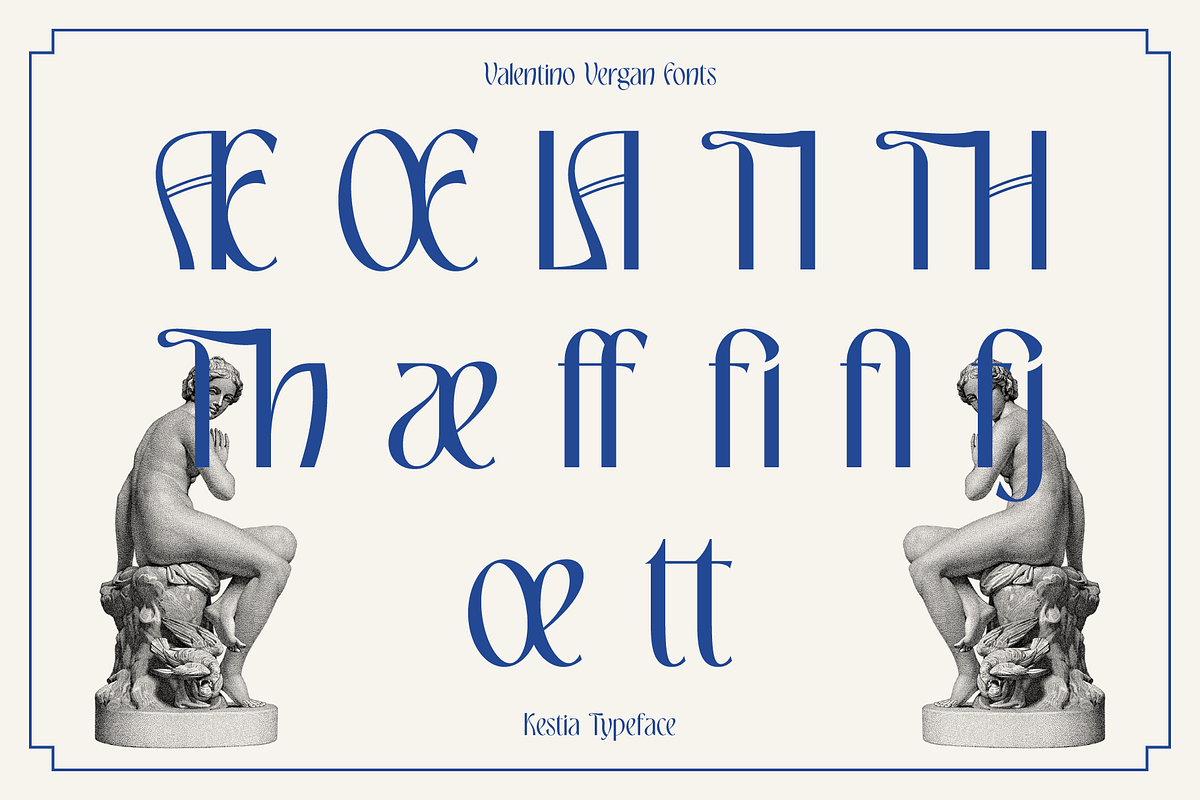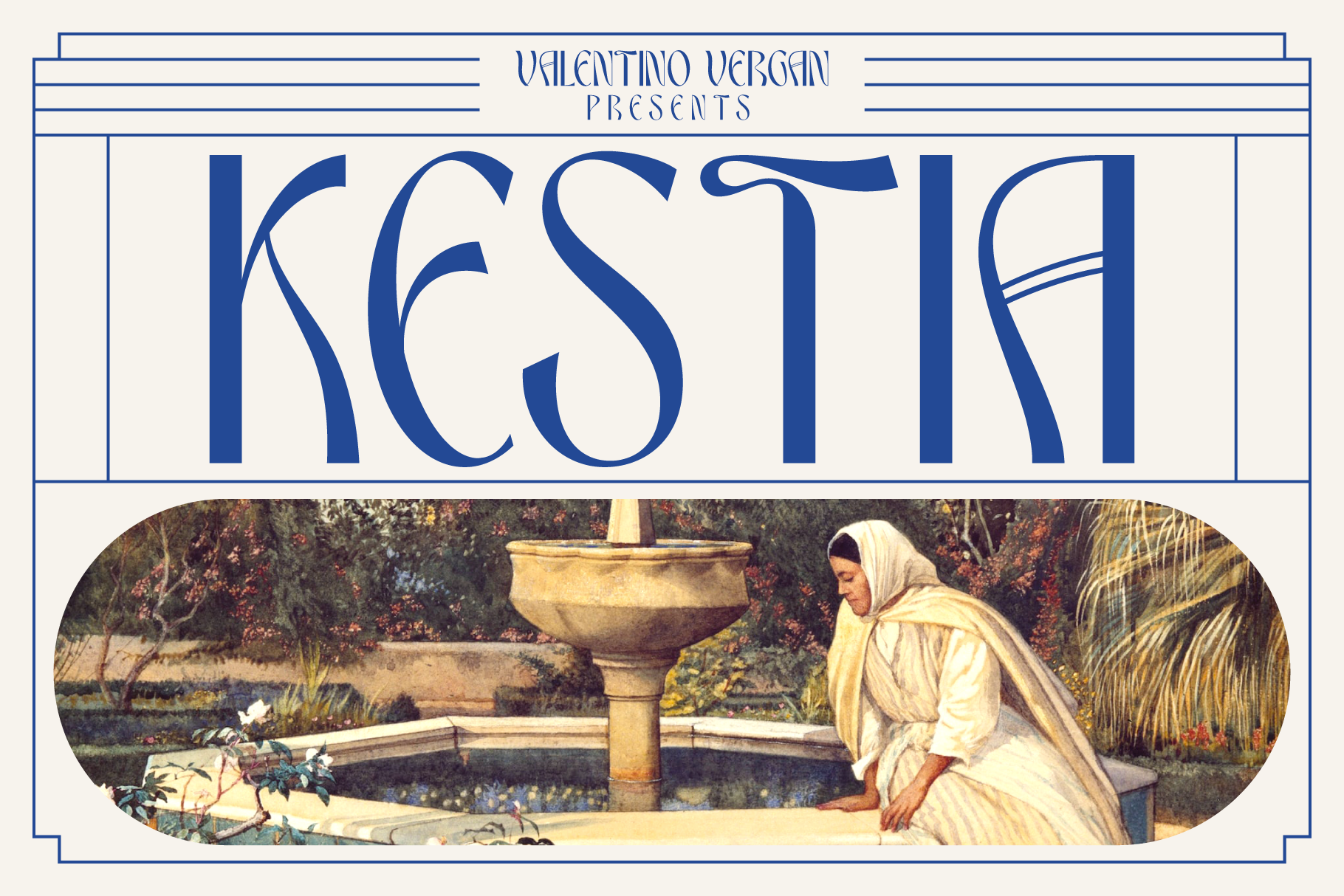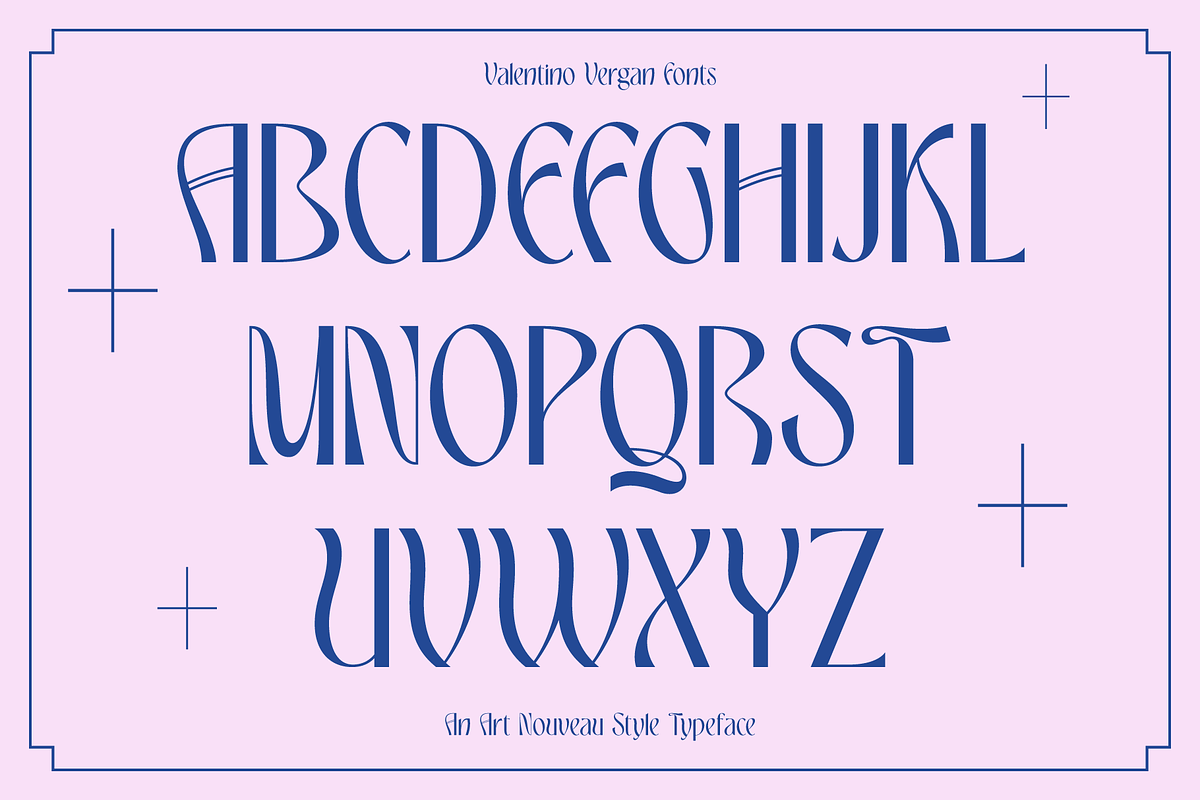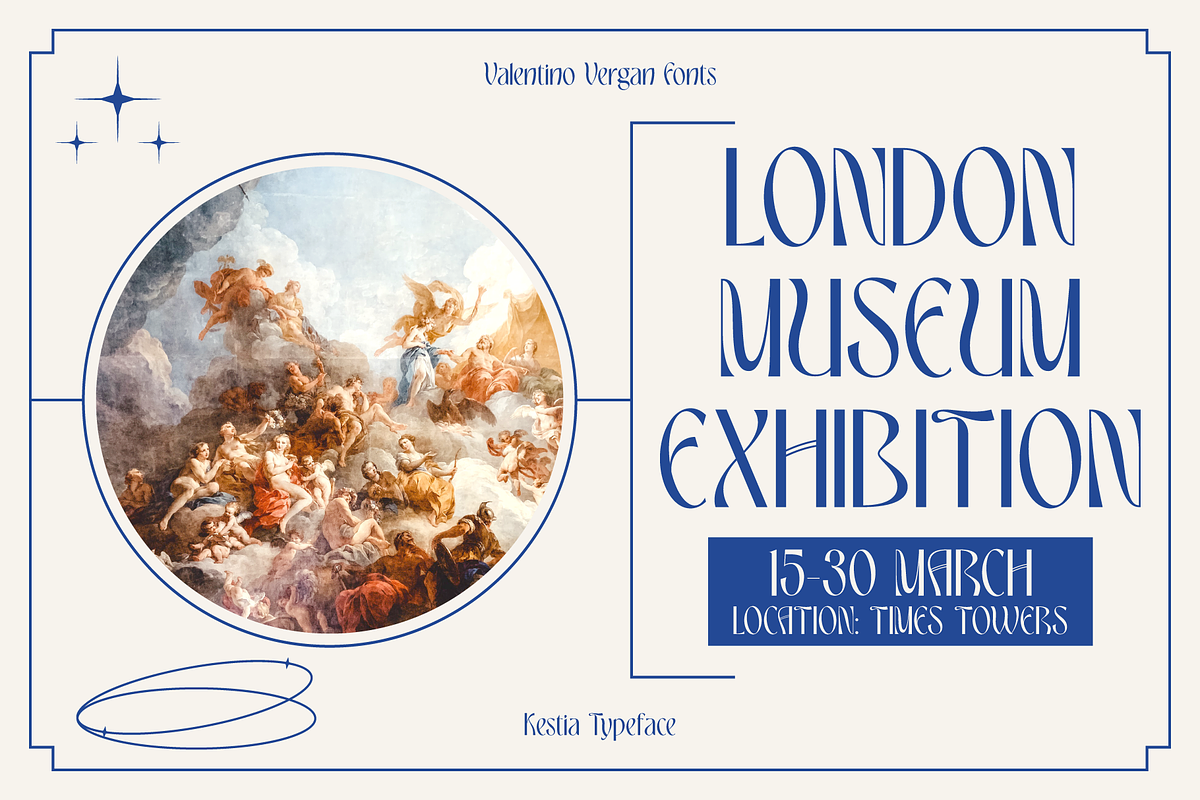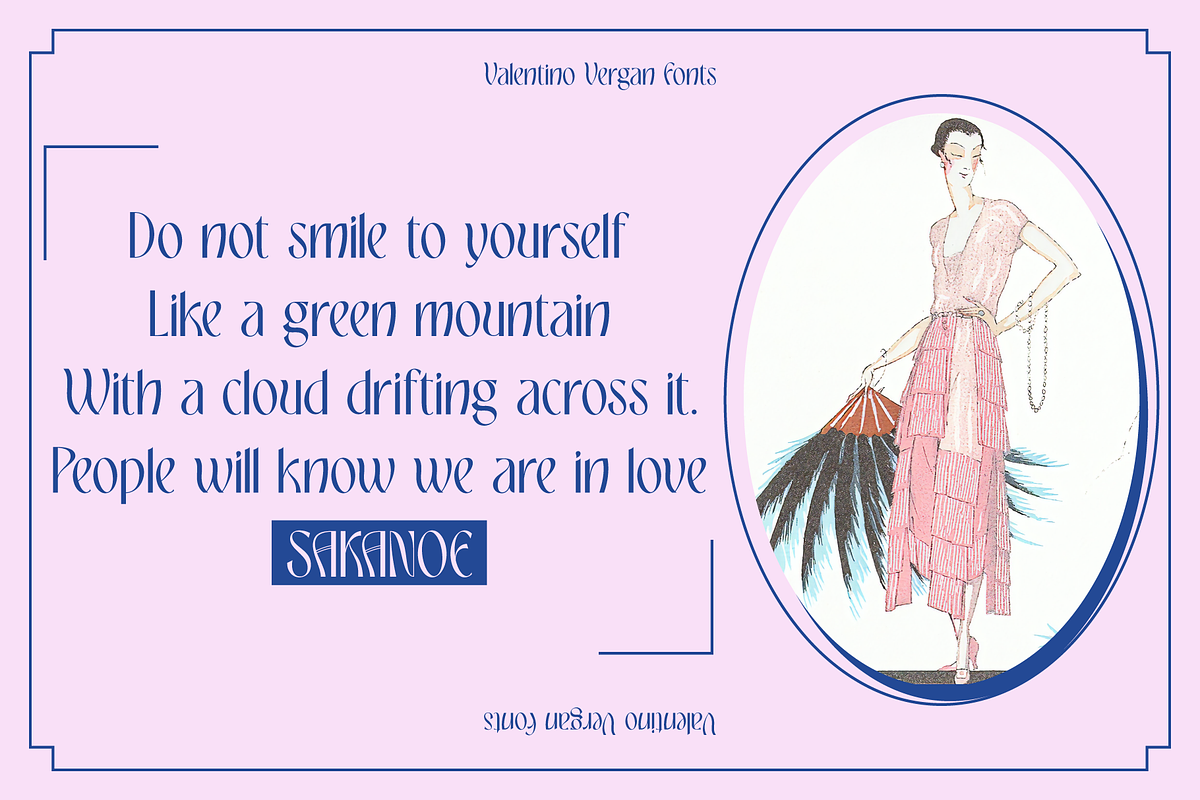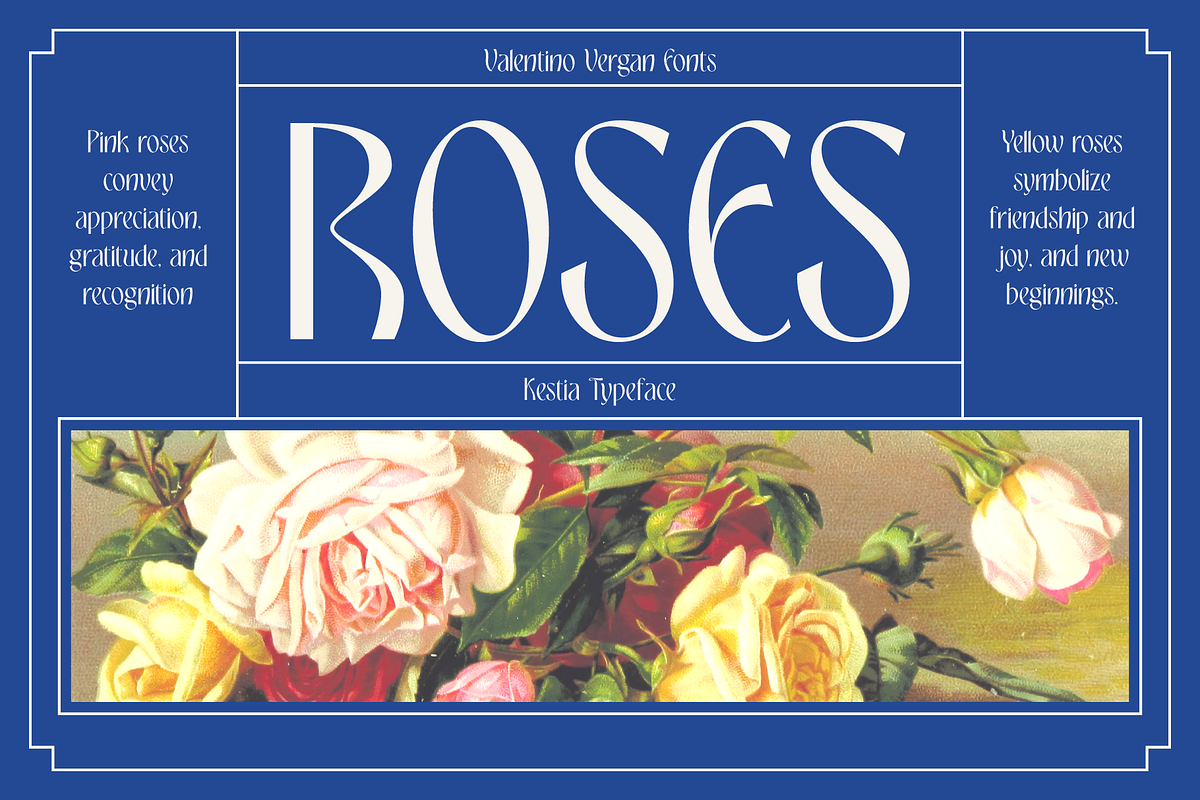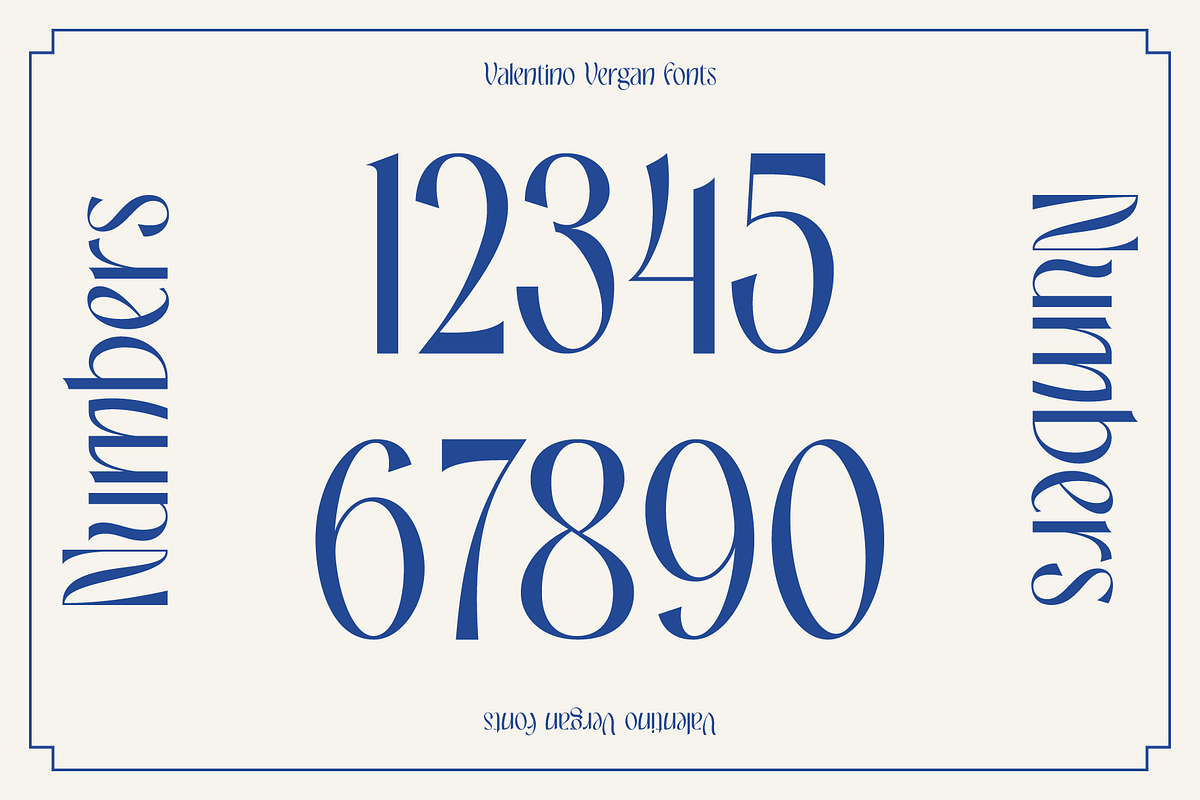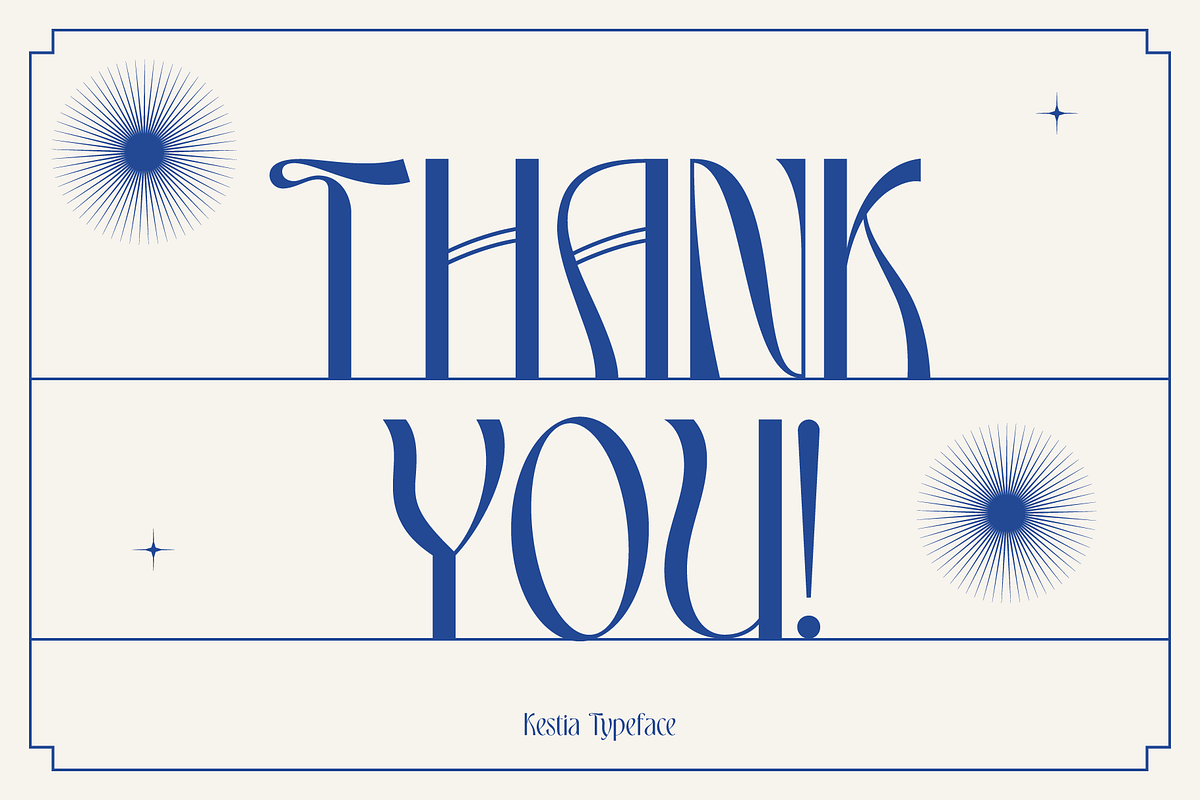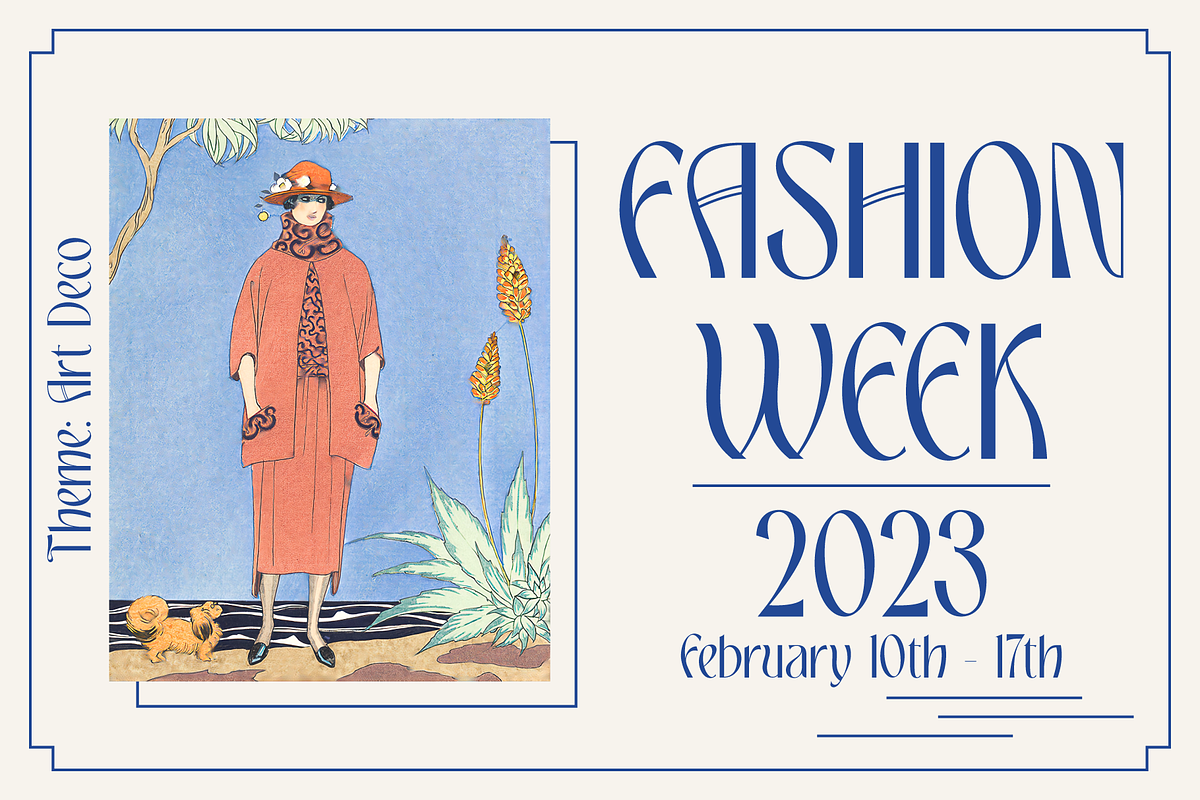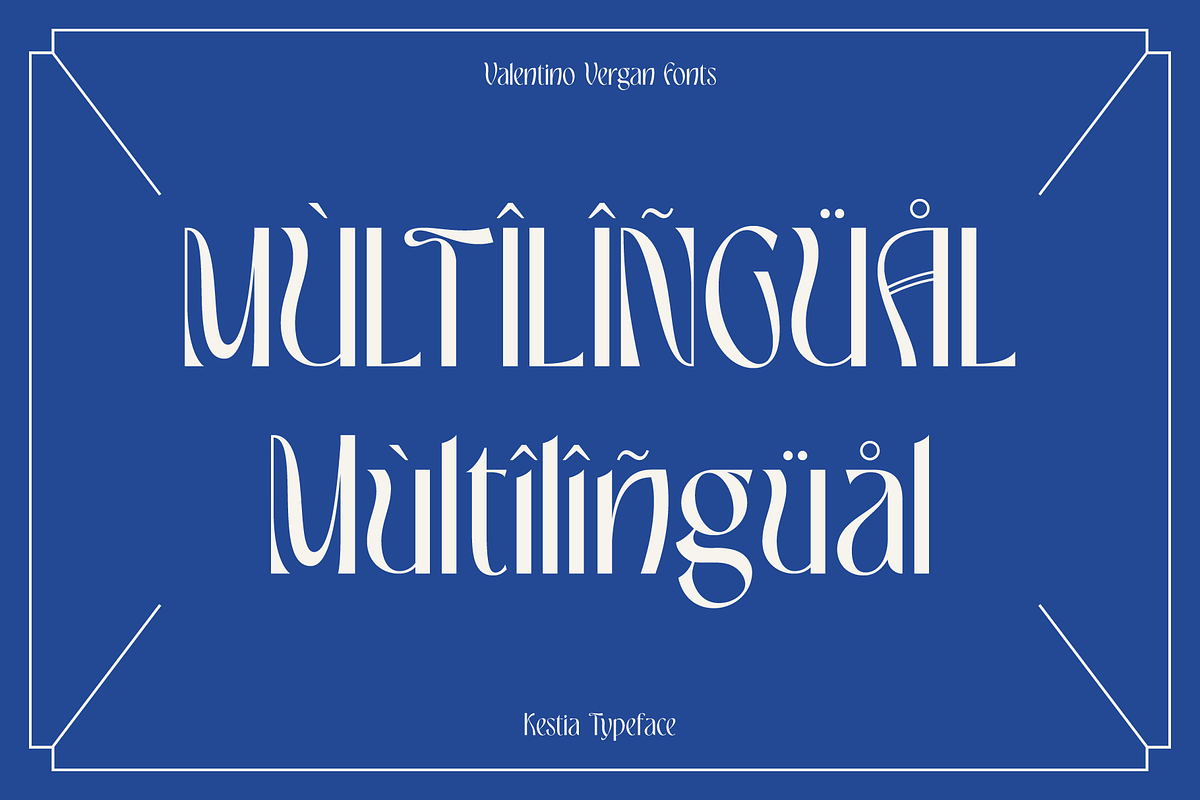
Kestia - Art Nouveau Typeface
Kestia is a modern and elegant typeface, which leans towards the Neue Nouveau type style. The inspiration for the Kestia typeface came from the early Art Nouveau typographic designs. I wanted to combine type styles from different eras, to create a typeface that is strong yet modern and unique.
I designed the typeface with creative letters and ligatures, which makes it perfect for creating nostalgic and retro designs such as: posters, magazines, logos, wedding invitations, Instagram posts, websites, blog posts, pull quotes, social media posts and much more.
If you are looking for something modern and retro for you next project, Kestia is the font for you.
KESTIA INCLUDES A FULL SET OF:
- Uppercase and lowercase letters.
- Numbers.
- Punctuation.
- Ligatures.
- Multilingual symbols.